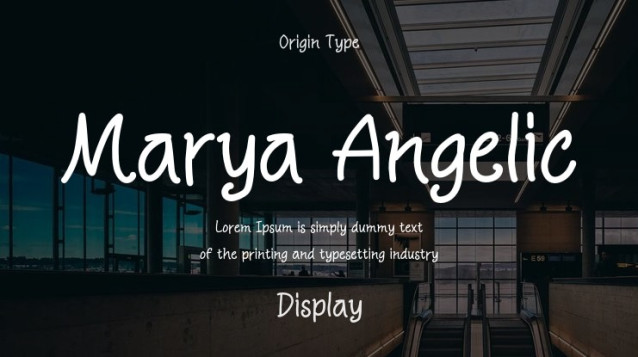
Marya Angelic Font
Marya Angelic Font is a simple and friendly handwritten font. Its natural and unique style makes it incredibly fitting to a large pool of designs. The only limit is your imagination!